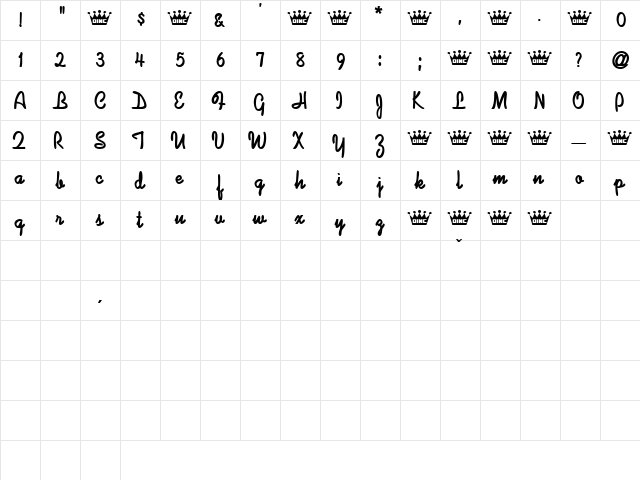
DaDooRonRon Regular
Design Context for DaDooRonRon Typeface
DaDooRonRon is a composed and adaptable typeface that performs quietly and consistently across a wide range of design contexts.